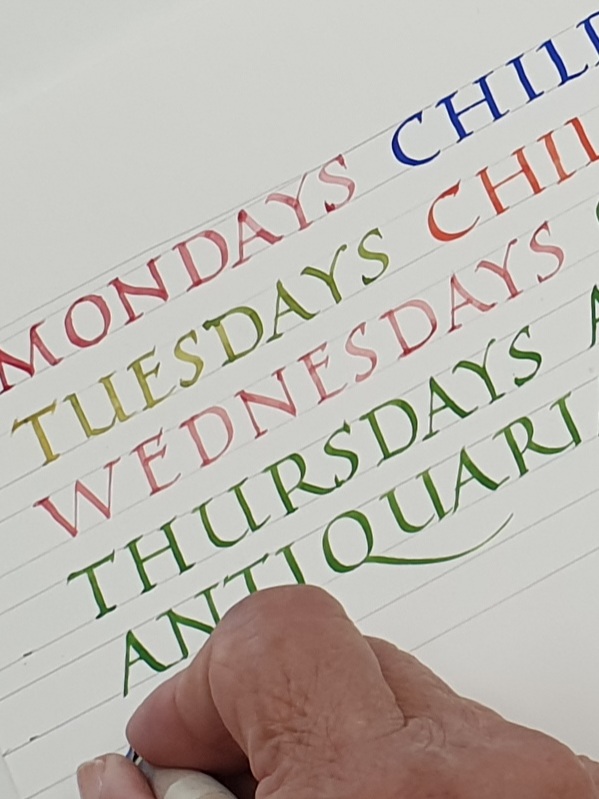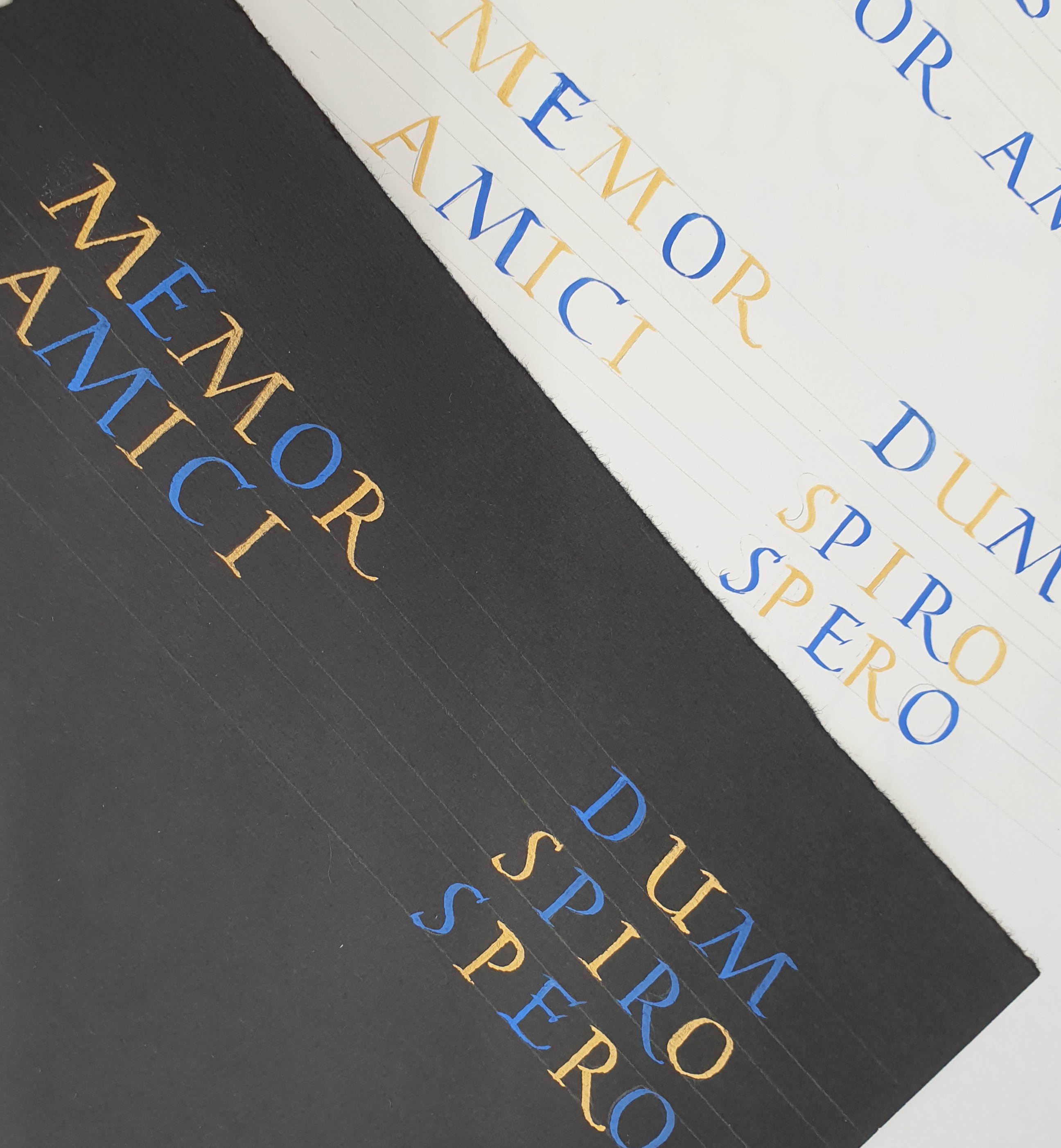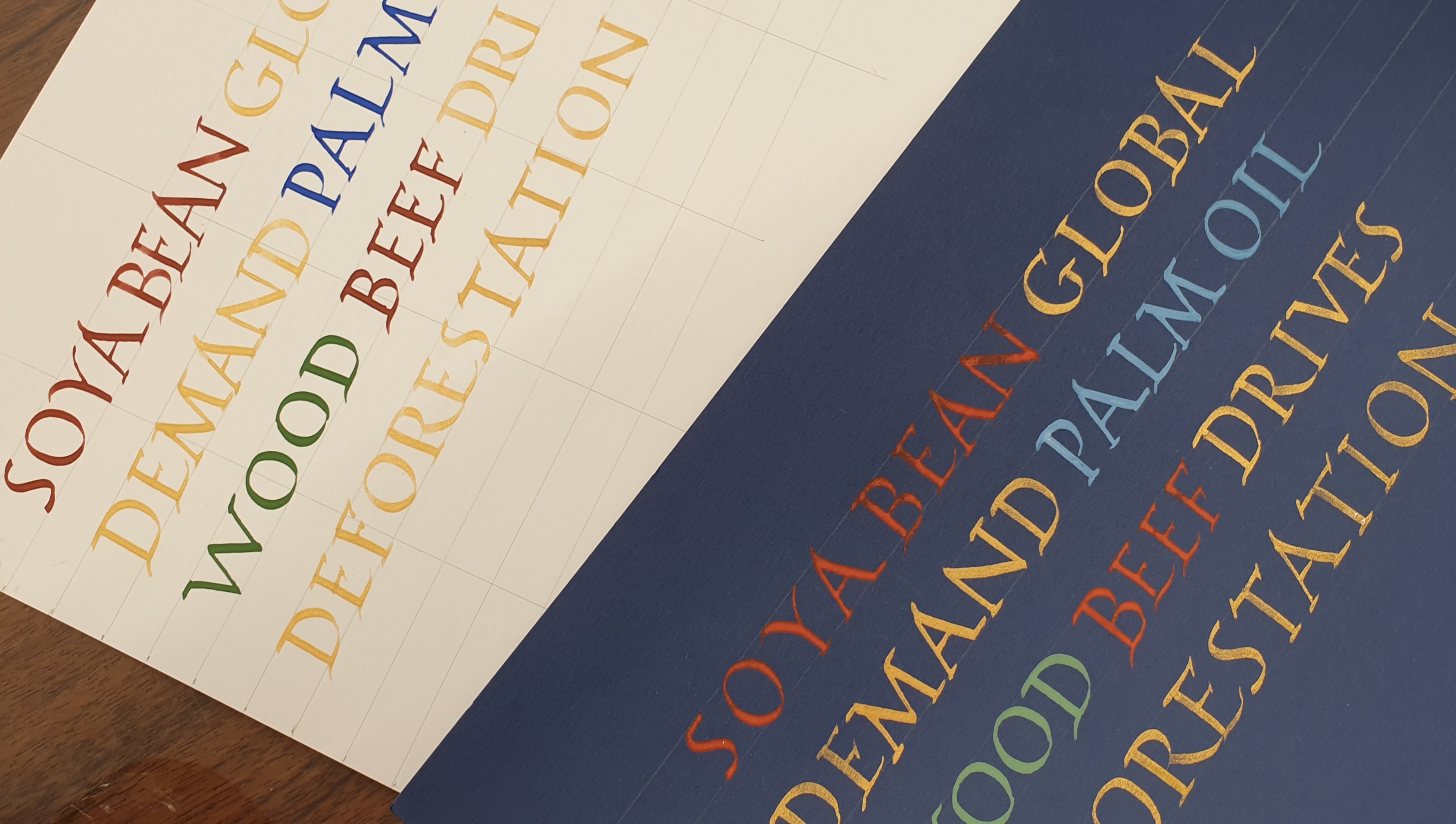
We were very lucky having Gaynor Goffe to teach us Sanvito capitals, as no-one could do his letters better justice. These capitals look like pen-written Romans but there’s more to them and they have an unparalleled subtle beauty. Gaynor started the day with the historical context of Sanvito capitals, but followed on fairly quickly with an easier, more modern style suited to the broad nib and which still looked very elegant. She demonstrated the multiple pen angles used for each letter, and gave each of us individual tuition on the aspects we found difficult. Many thanks for this workshop, Gaynor.